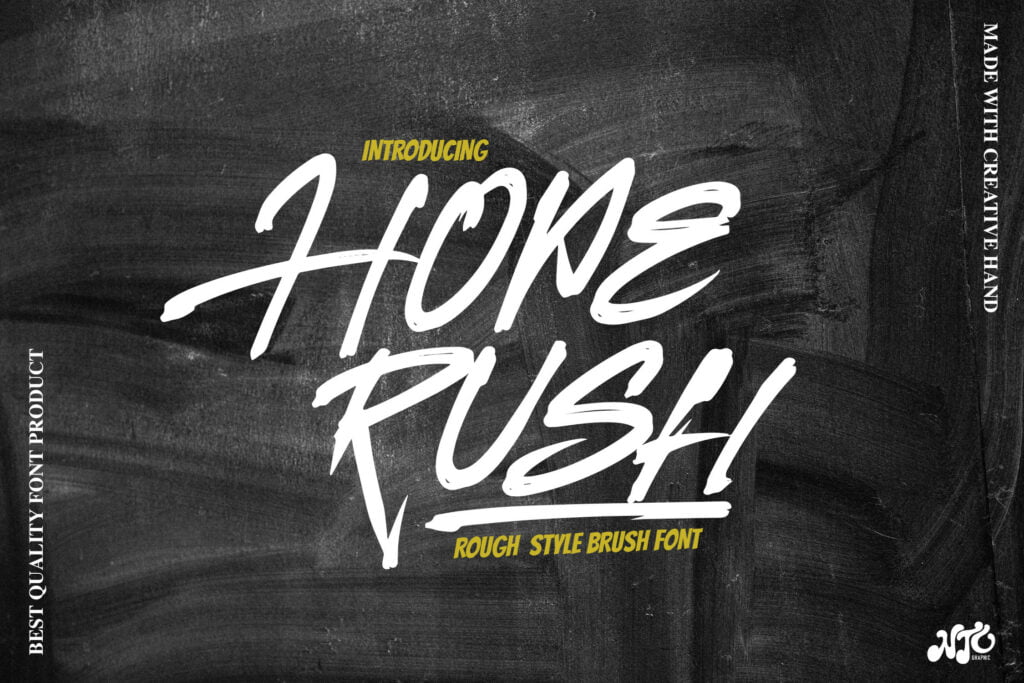
Hoperush Font
Hoperush is a cool Brush font that features a street art vibe. This font is suitable for designs such as t-shirts, sportswear, logos, advertisements, clothing, and more.
Hoperush Rough Stvel Brush Font